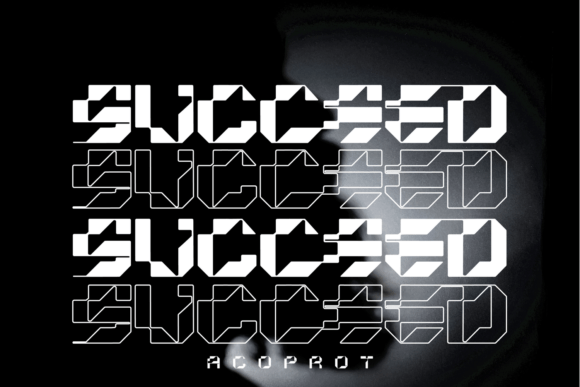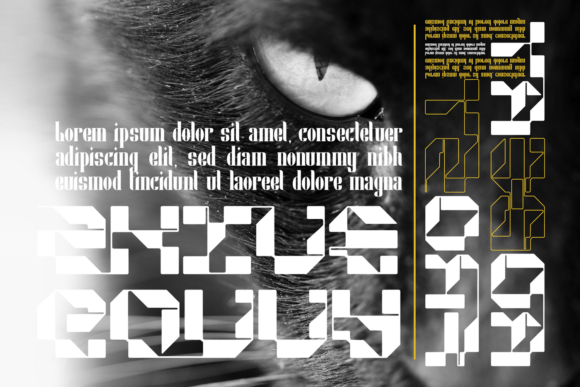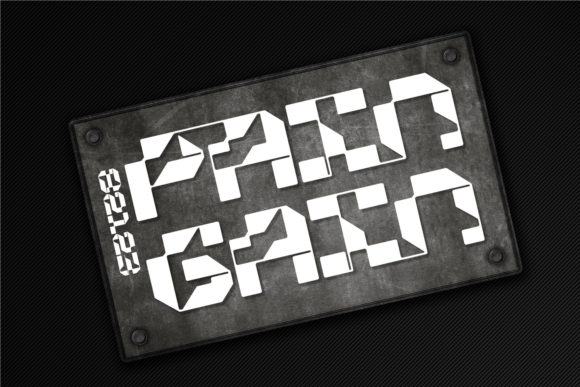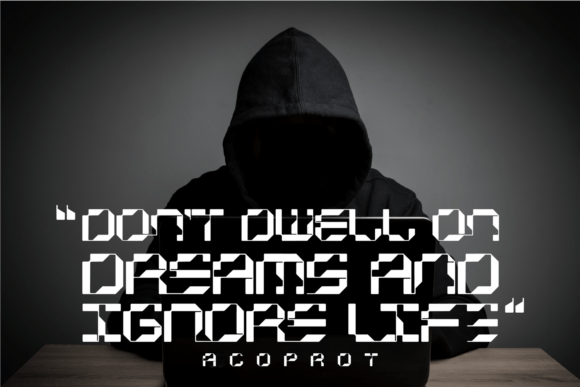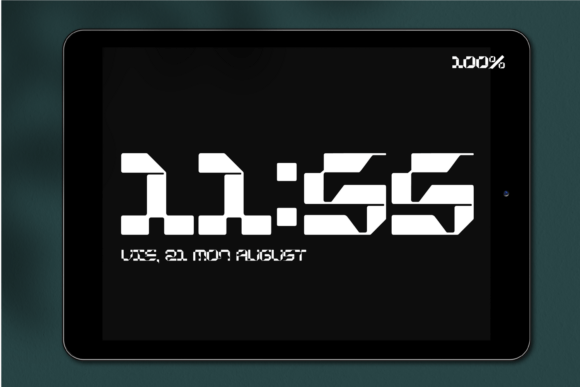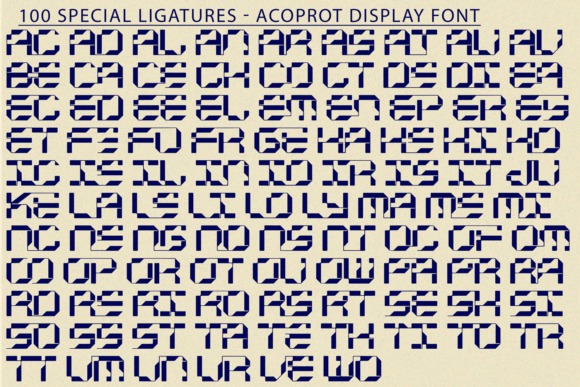
When a Glitch Becomes a Masterpiece
You’ve been staring at your screen for hours, trying to find the perfect font to give your design that extra oomph. You’ve scrolled through countless options, but nothing seems to pop. That’s when you stumble upon it – a quirky, pixelated display font that’s so imperfectly perfect, it’s a work of art. Introducing the Acoprot Display Font, a charmingly flawed typeface that adds a touch of human error to your digital creations.
Each character in the Acoprot Display Font is carefully crafted with an intentional offset of one pixel, giving it a unique, grid-based aesthetic. This attention to detail is what makes it truly special, and why it’s a valuable addition to any designer’s toolkit. By incorporating the Acoprot Display Font into your creative ideas, you’ll be able to add a layer of personality and whimsy that’s sure to make your work stand out.
Acoprot Display Font Key Features
- Font family: Acoprot Display Font is a sans-serif font family designed for display purposes.
- Character set: Supports a wide range of languages, including Latin, Cyrillic, and Greek alphabets, making it suitable for international use.
- Unique characteristics: Acoprot Display Font features a geometric and modern design aesthetic, with a focus on legibility and clarity, making it ideal for headlines, titles, and other display text.
Acoprot Display Font Review
Acoprot Display Font is a typeface that has some great features, but also some drawbacks. Let’s dive into what works well and what doesn’t.
✨ The font’s high contrast and bold weight make it perfect for display purposes. It’s great for titles, headings, and other prominent text.
✨ The font’s geometric shapes give it a modern and sleek look, making it suitable for contemporary designs.
✨ The font supports a wide range of languages, including Latin, Cyrillic, and Greek, making it a great choice for international projects.
⚠️ The font’s bold weight can be overpowering, making it difficult to read in smaller sizes or in combination with other fonts.
⚠️ The font lacks a clear hierarchy, making it challenging to create visual interest and differentiation between different levels of headings.
⚠️ The font’s geometric shapes can make it difficult to read in certain contexts, such as in low-light environments or when printed at small sizes.
Overall, Acoprot Display Font is a solid choice for display purposes, but it may not be the best option for body text or situations where readability is a top priority.
I would recommend using Acoprot Display Font in conjunction with a more readable font for body text, and carefully considering the context in which the font will be used.
- Use it for titles, headings, and other prominent text.
- Avoid using it for body text or in situations where readability is a top priority.
Tips for Getting the Most Out of Acoprot Display Font
Acoprot Display Font is best used for headings and titles due to its bold and eye-catching design. To get the most out of it, use it sparingly and in combination with other fonts to create visual hierarchy.